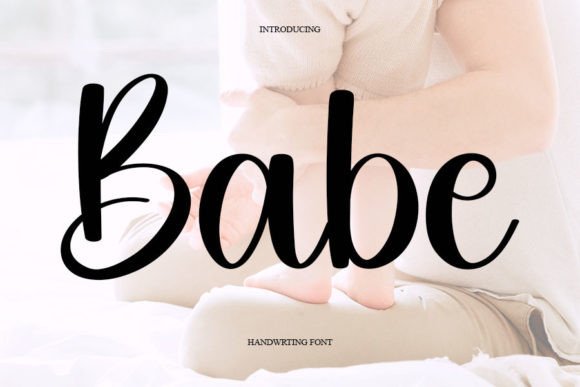
Introducing Babe Font, the ultimate script font that will take your designs to new heights! Created by the talented designers at Harlek studio, this font is a must-have for anyone looking to make a statement with their typography.
Babe Font is not just your average handwritten font. It's a masterpiece that combines elegance with a touch of playfulness. With its organic strokes and flowing curves, this font brings a simple and natural feel to any project. Whether you're designing a logo, crafting a greeting card, or creating captivating headlines, Babe Font is the perfect choice.
What sets Babe Font apart from the rest is its versatility. This font can adapt to any style or theme, making it ideal for both professional and personal use. It's like having multiple fonts in one! From vintage-inspired designs to modern and sleek aesthetics, Babe Font can do it all.
But why should you choose Babe Font over other fonts? Well, let us tell you. This font has been meticulously crafted with attention to detail and passion. Each letter is a work of art, carefully designed to captivate your audience and leave a lasting impression.
With Babe Font, you'll have the power to evoke emotions and create memorable experiences for your viewers. Its graceful curves and unique character will make your designs stand out from the crowd, making them impossible to ignore.